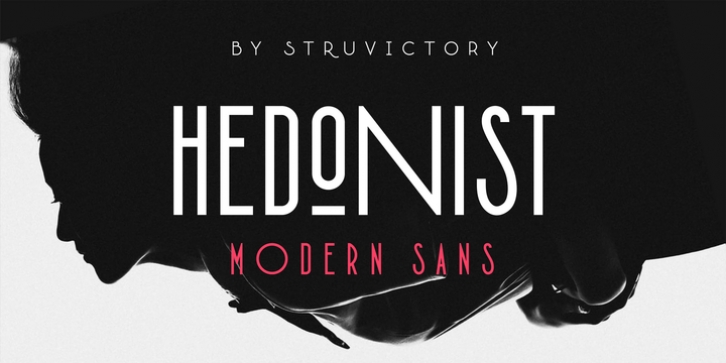
Hedonist was designed by Viktoryia Strukouskaya, Viktor Strukouski and published by Struvictory.art. Hedonist contains 1 style. The font is currently #19 in Hot New Fonts.
Hedonist is a modern sans serif. The font is represented by condensed lowercase and extended uppercase. To get an elegant and contemporary design, combine them together.
Hedonist is suitable for retro and modern posters, typographic prints, event design and city identity, design of books and magazines.